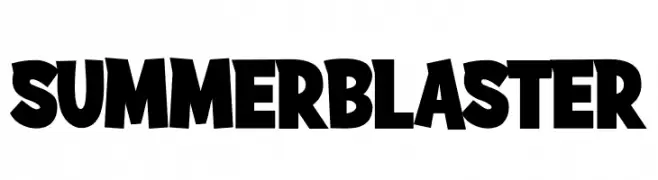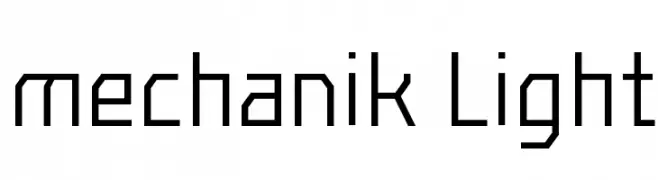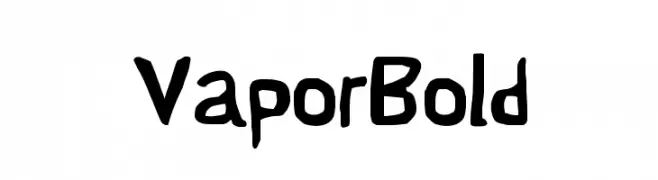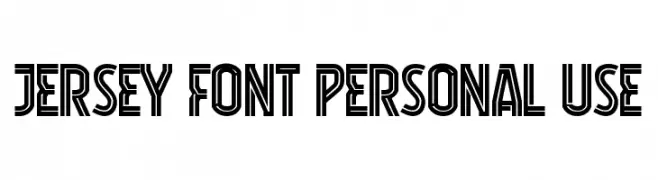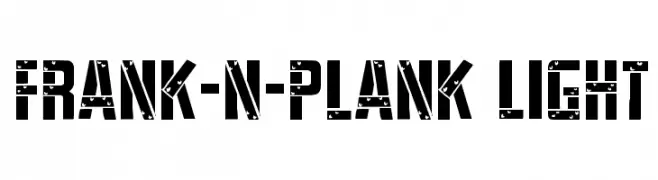
A bold, playful font with thick strokes and dynamic shapes.
A whimsical, hand-drawn font with playful and dynamic characters.
A geometric, angular font with a modern, mechanical style.
A bold, geometric outline font with sharp angles and a modern look.
A bold, playful font with a hand-drawn, irregular style.
A modern striped font with geometric shapes and consistent design.
A modern, condensed font with tall, narrow characters and a sleek design.
A bold, geometric font with a double line effect, ideal for sports-themed designs.
A bold, industrial font with embedded bolt patterns for a rugged look.